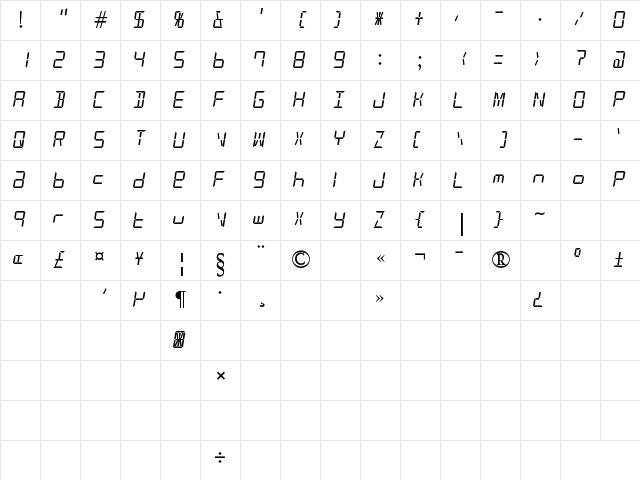
alarm clock Regular
Complete alarm clock Regular glyph index. Displaying only characters natively supported by alarm clock Regular font.
Design Context for alarm clock
alarm clock is a composed and adaptable typeface that performs quietly and consistently across a wide range of design contexts.